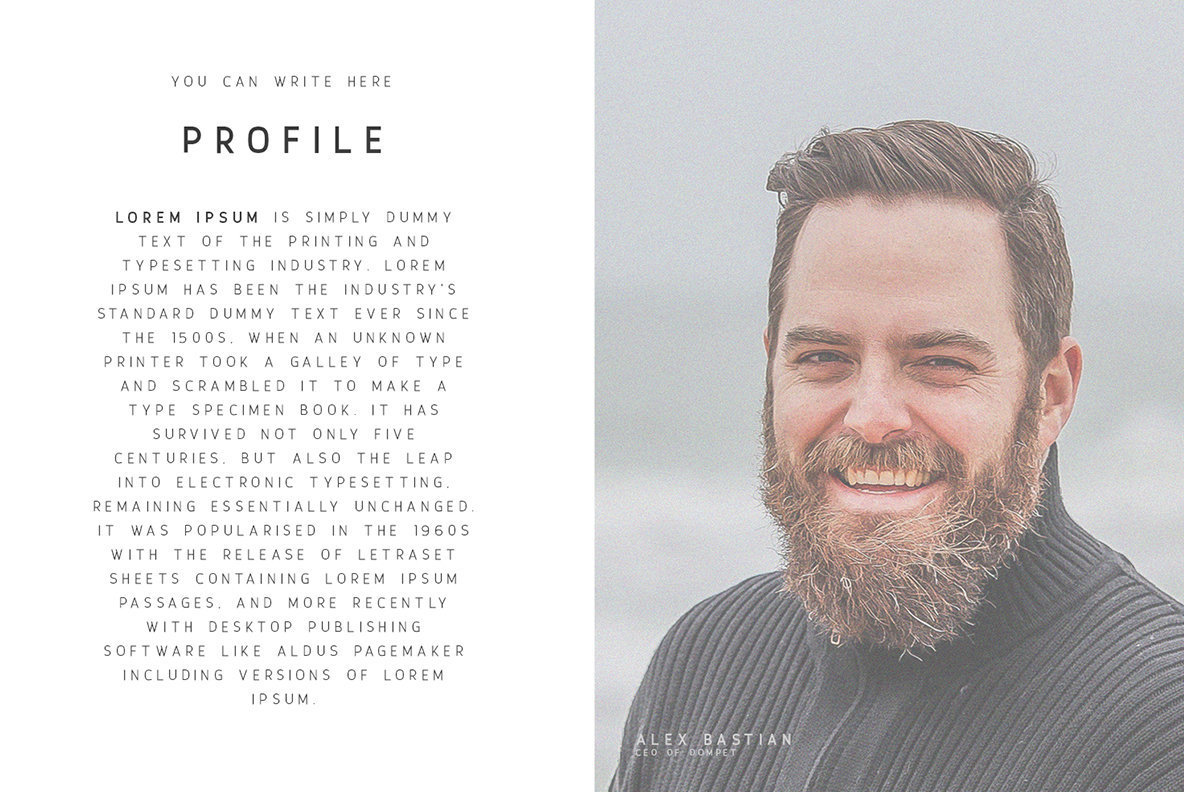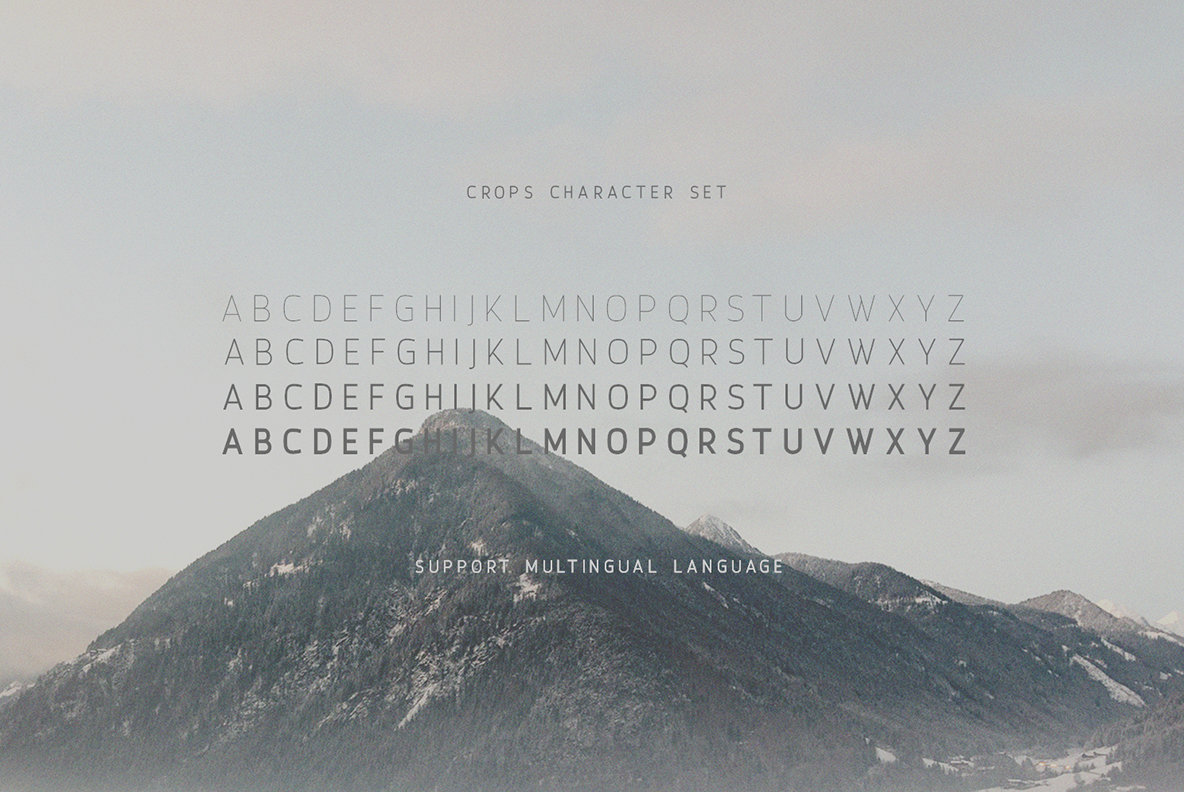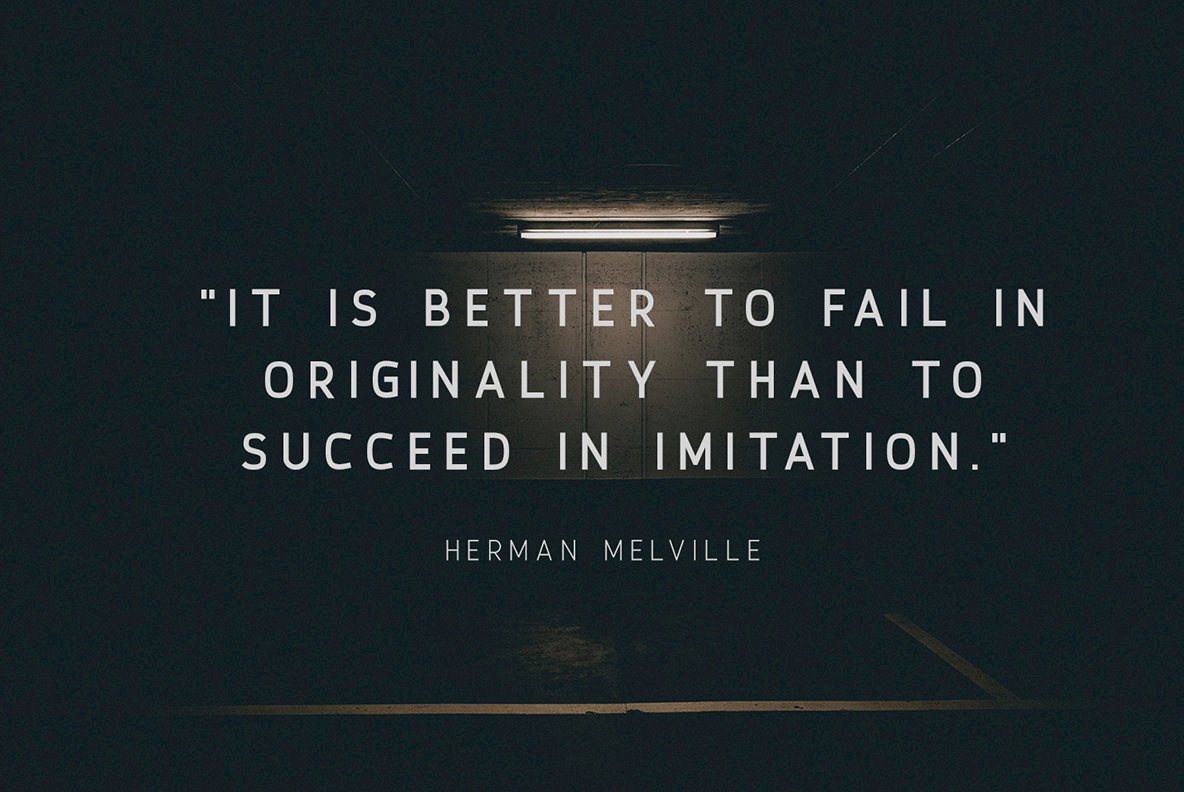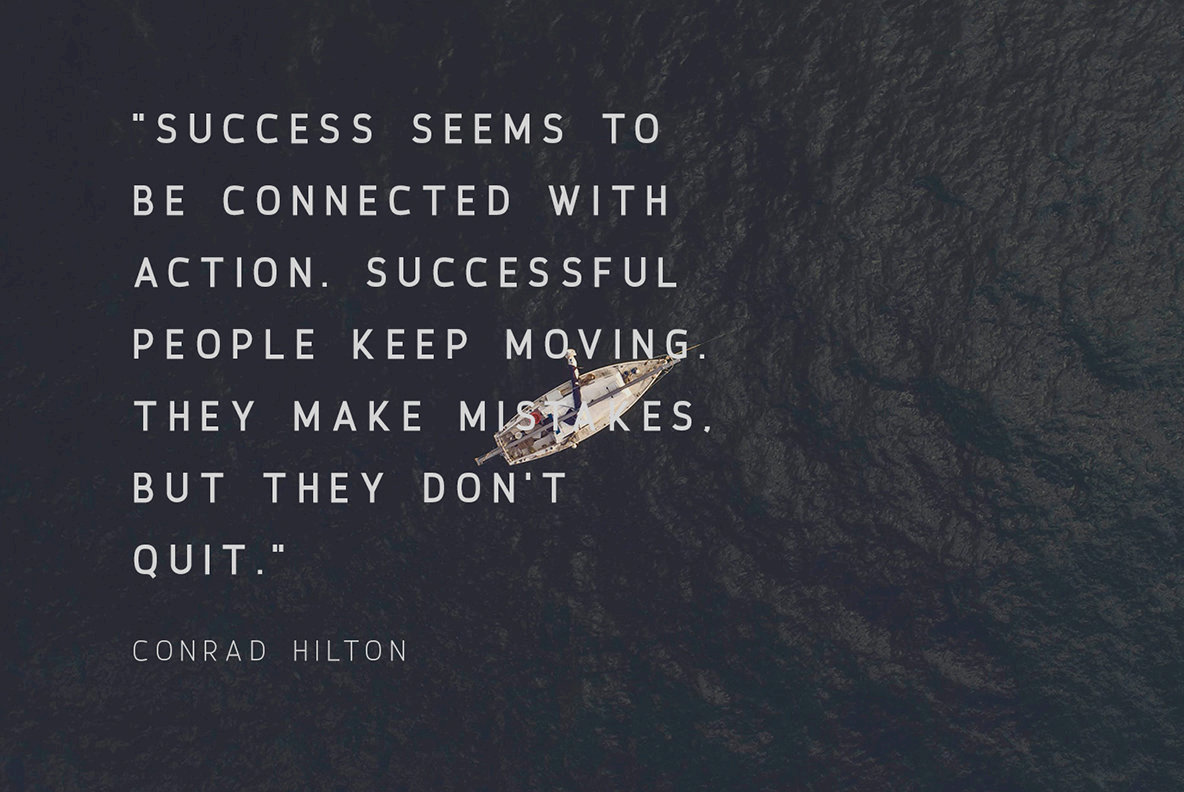
Crops Font
Embrace the clarity and simplicity of Crops, a clean sans serif font designed for the discerning eye. Its straightforward design makes it a stellar choice for logo creation, magazine layouts, and a host of design projects requiring a touch of modern elegance.Crops: A Minimalist Sans Serif
Let Crops inspire your next project with its minimalist touch, whether you're crafting invitations or scaling up for large-format artworks.